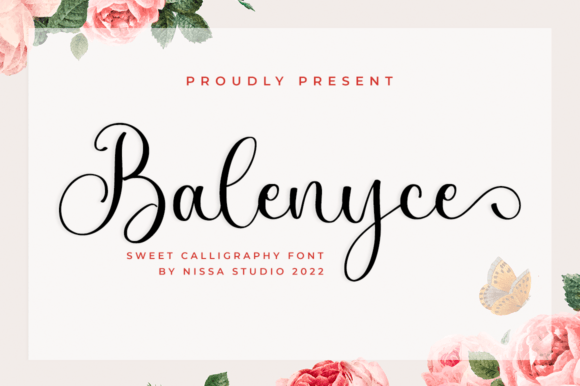
Journey to a world of enchanting elegance with Balenyce Font, the script font that captivates hearts and transforms designs into masterpieces. NissaStudio, the creative force behind this font, has woven a tapestry of beauty and sophistication, making Balenyce the perfect choice for those seeking a touch of timeless charm in their projects.
Balenyce's delicate curves and flowing lines evoke a sense of grace and femininity, reminiscent of the finest calligraphy. Each letter dances across the page, carrying with it a story of elegance and refinement. Whether you're crafting logos, invitations, or website designs, Balenyce elevates your creations with a touch of understated luxury.
As you explore the depths of Balenyce's character set, you'll discover a treasure trove of glyphs and swashes, each meticulously crafted to add depth and dimension to your designs. With PUA encoding, accessing these special characters is as simple as a click, unlocking a world of endless creative possibilities.
Imagine the allure of a bakery website adorned with Balenyce's delectable charm. The font's gentle strokes create an atmosphere of warmth and invitation, enticing customers to indulge in the sweet treats on display. Balenyce transforms ordinary words into mouthwatering masterpieces, leaving a lasting impression on every visitor.
Unleash your creativity with Balenyce, the script font that breathes life into your designs. Its versatility extends beyond bakery websites, finding harmony in a myriad of projects. From wedding invitations that exude romance to branding designs that command attention, Balenyce adapts seamlessly, adding a touch of elegance to every endeavor.